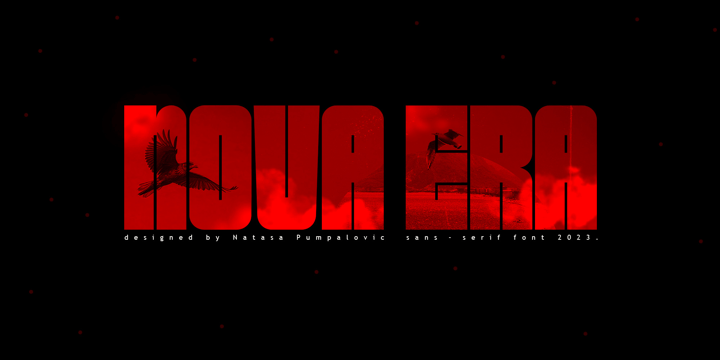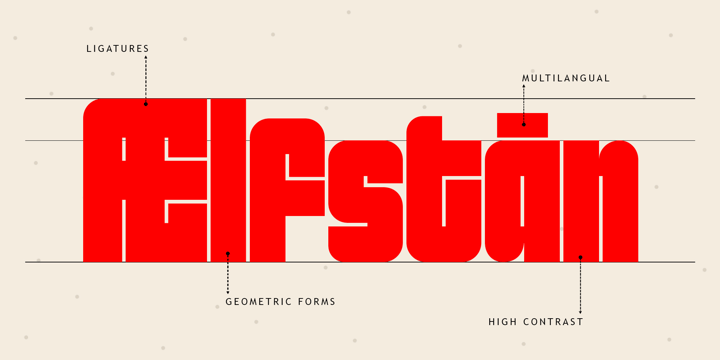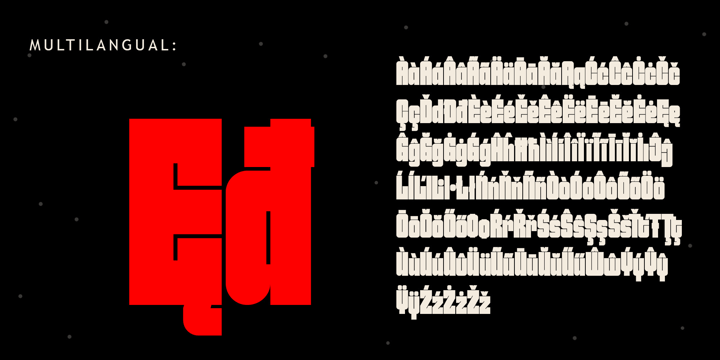
Natasa Pumpalovic
Natasa Pumpalovic was born in 2001 in Kraljevo, Serbia. She completed her Bachelor's degree in Graphic Design in 2024 at the Faculty of Philology and Arts in Kragujevac and enrolled in the Master's program in Graphic Design the same year.
Interest in typography and calligraphy led her to start exploring typeface design in 2022.
Her interest in typography is focused on designing typefaces that seamlessly combine modern aesthetics and practicality, with an emphasis on versatility and adaptability for various design applications. Her work supports both Latin and Cyrillic scripts, incorporating diacritics and ligatures, which ensures usability across diverse linguistic environments. Additionally, her designs often cater to Western, Central, and Eastern European languages, making them highly functional for a broad range of projects, including branding, editorial design, and advertising.